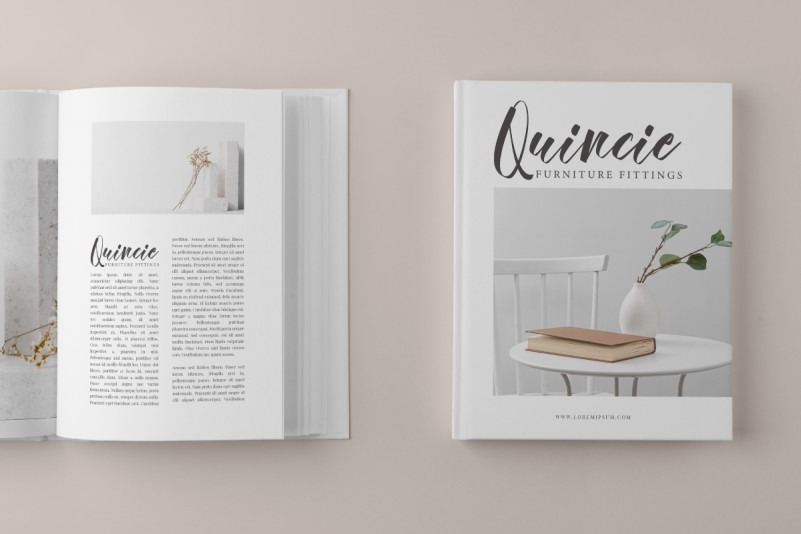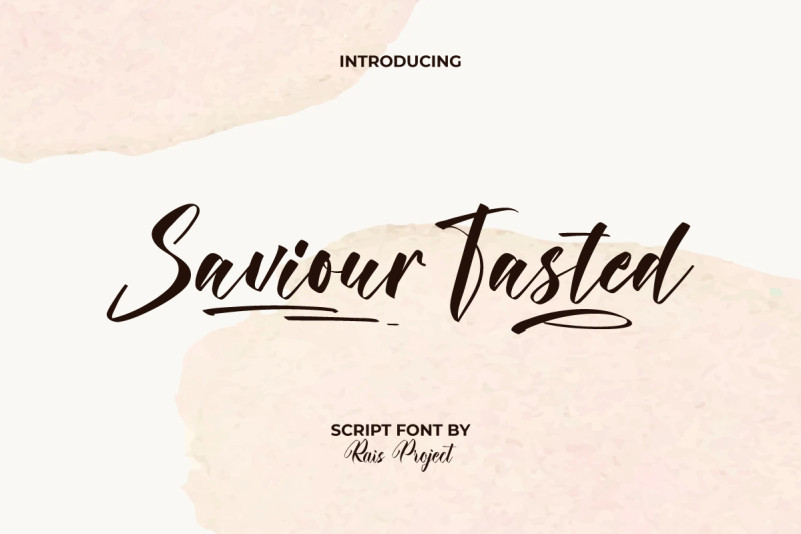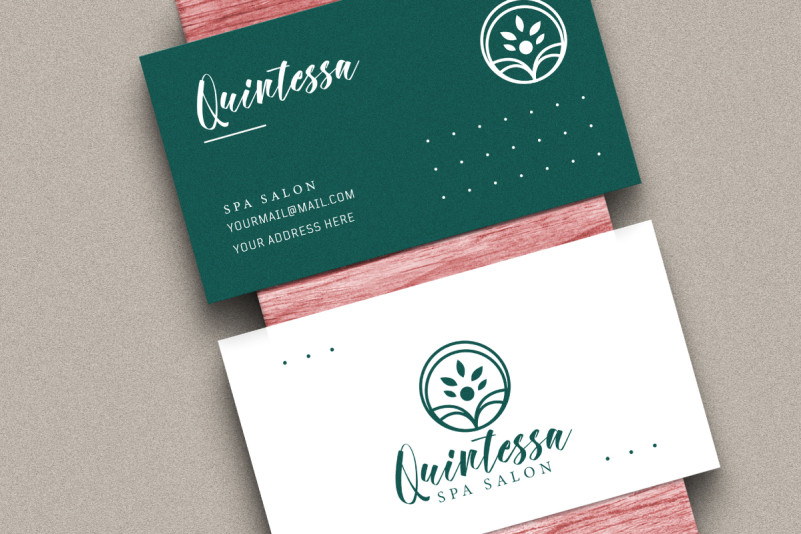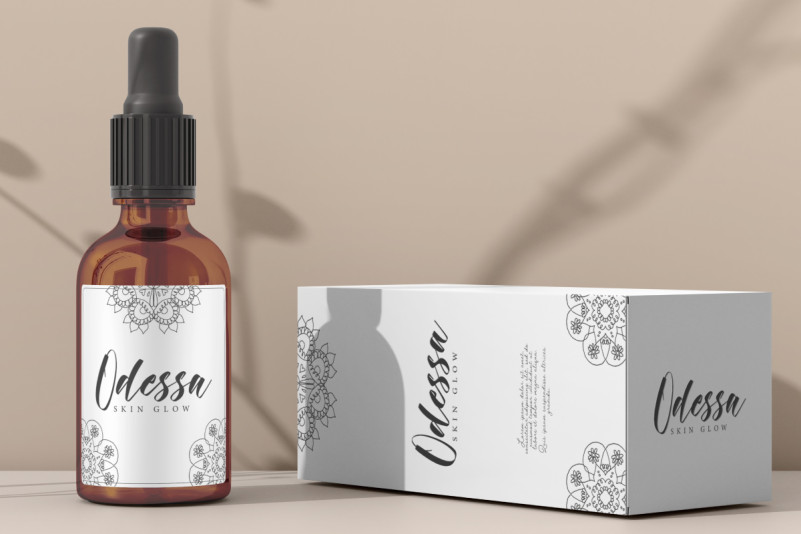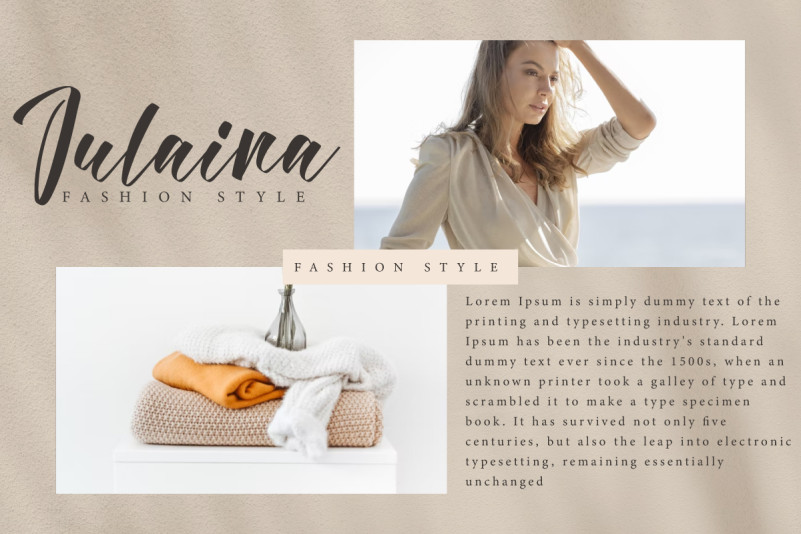
Saviour Tasted Font
Saviour Tasted Script Font is a trendy stylish script font. This font is made up of balanced thick and thin lines that connect beautifully and still easy to read. This font has a great appearance making it suitable for many industries, such as beauty product, event or wedding organizer, fashion, florist, furniture, printing, publishing, restaurant, salon and spa, and more!